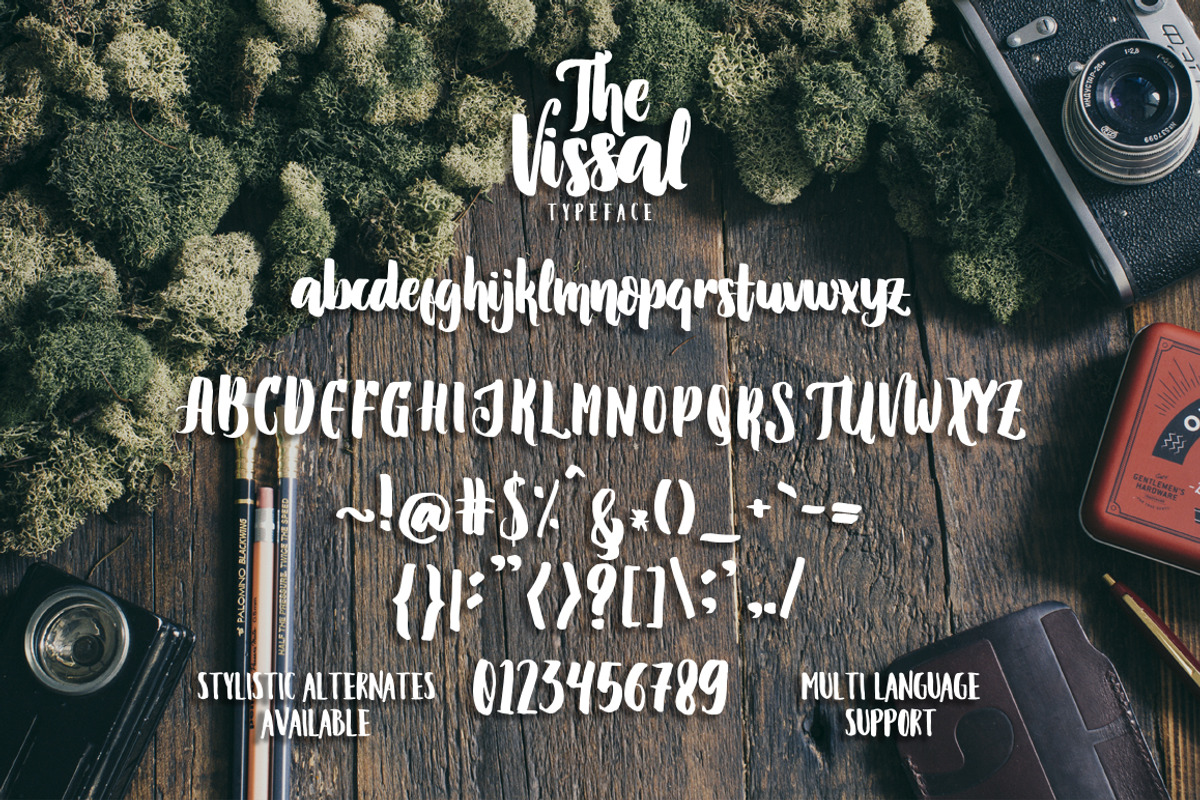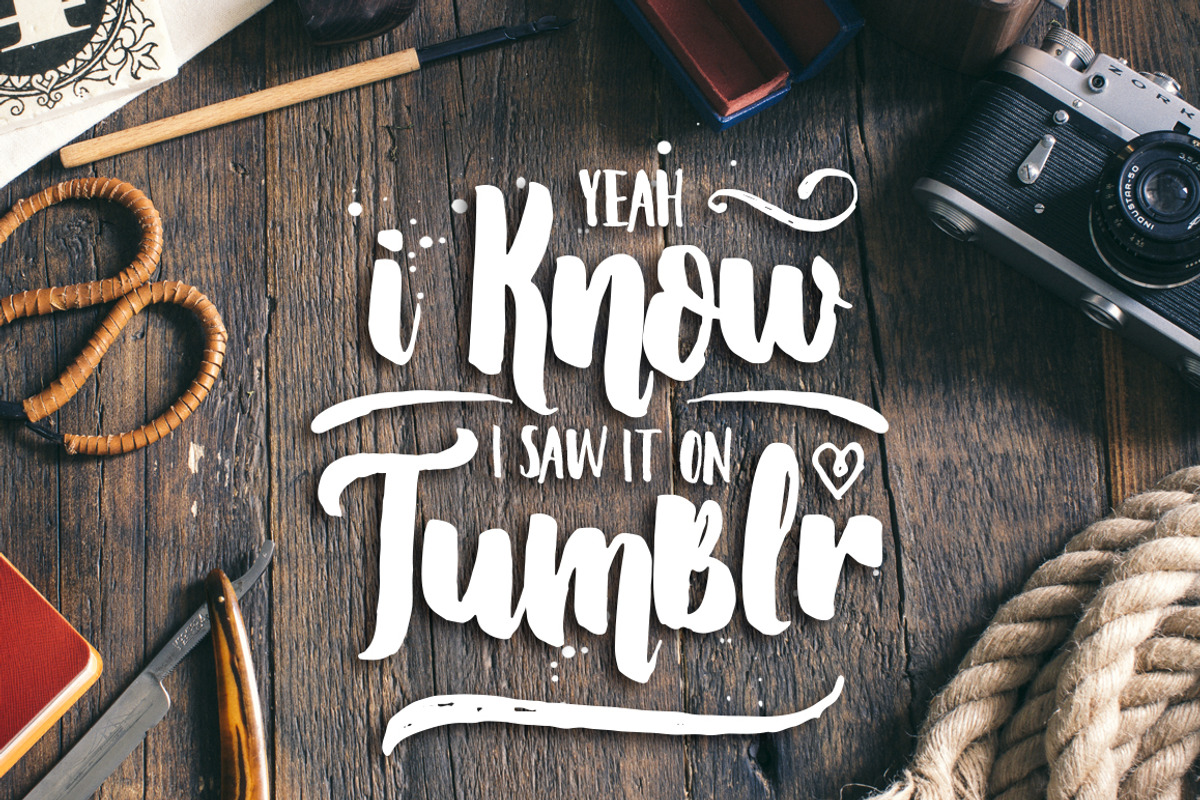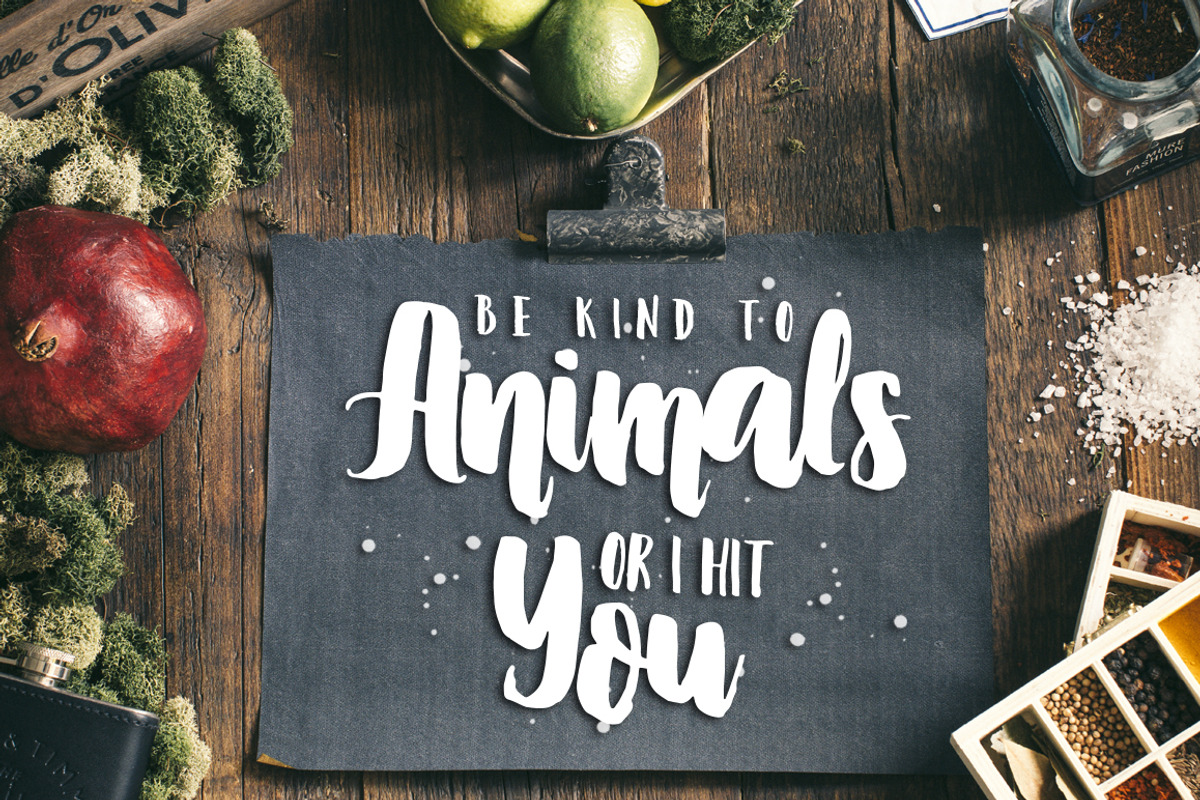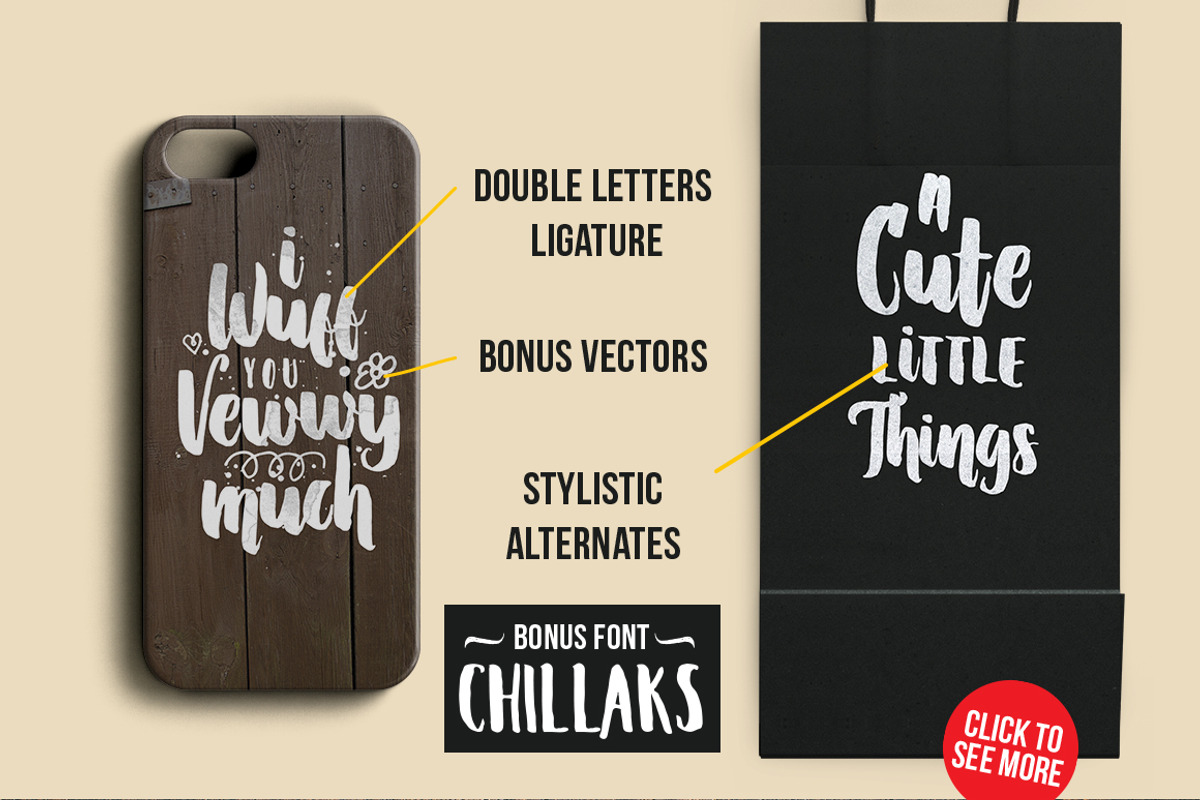
The Vissal script brush logo font
The Vissal script brush logo font by Ian Irwanwismoyo is a font selected for branding, posters, packaging, typography.
- Product Content The Vissal font contains 298 glyphs with Opentype Standard encoding, Multi Language support, Stylistic Alternates available,
- Vector Bonus (AI, EPS, and PDF format) contains a swirl and swash as an accessories to fill the empty space of your typographic hand-letteri
Why The Vissal script brush logo font is worth a look
The Vissal script brush logo font by Ian Irwanwismoyo fits naturally into Branding, posters, packaging, typography.